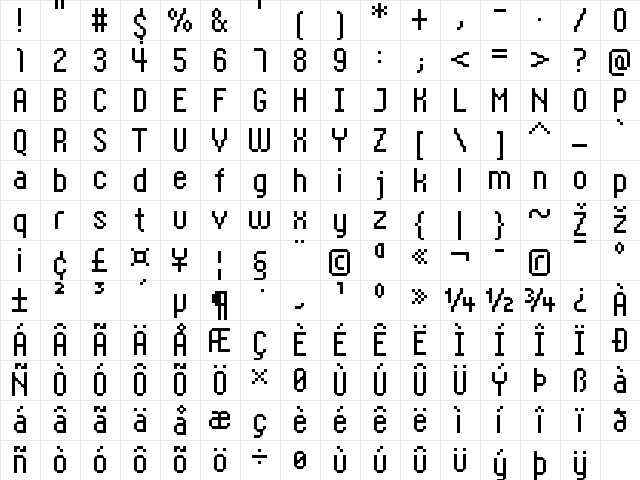
FFF Homepage Regular
Design Context for FFF Homepage Typeface
FFF Homepage offers clean, dependable letterforms without strong stylistic allegiance, making it a practical choice for designers who need flexibility.